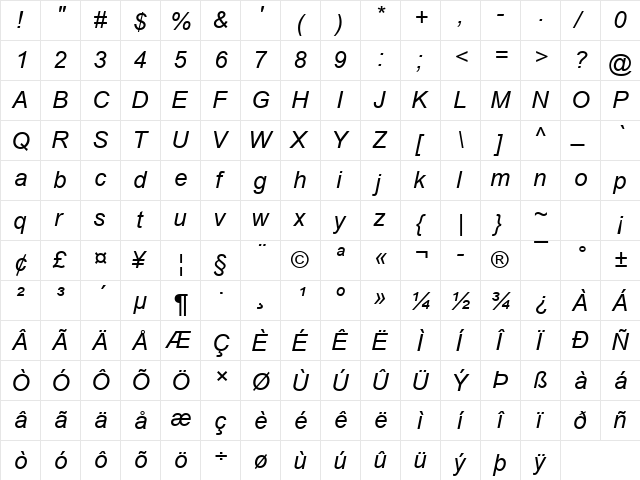
Arial Italic
| Foundry | Monotype Typography |
| Designer | Monotype Type Drawing Office - Robin Nicholas, Patricia Saunders 1982 |
Design Context for Arial Typeface
Arial offers clean, dependable letterforms without strong stylistic allegiance, making it a practical choice for designers who need flexibility. The dynamic lean of this cut emphasises speed and emphasis in any layout.
Pro Tip: Try Arial for annotation and caption copy alongside an upright companion — the contrast in angle creates a dynamic but ordered typographic system.